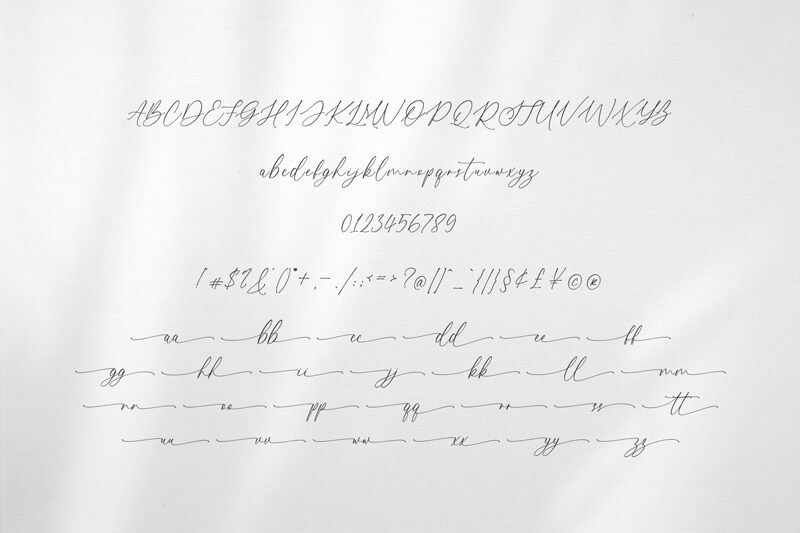
Gisella, a captivating handwritten font designed by Pen Culture, exudes a sense of effortless elegance and genuine authenticity. This light, signature-style typeface boasts fluid strokes and harmonious letter connections, creating a visually striking and emotionally evocative impression. Gisella's organic, handcrafted aesthetic seamlessly blends the charm of a personal signature with the refined aesthetics of a professional typeface.
The versatility of Gisella makes it a compelling choice for a wide range of design applications, from elegant wedding invitations and stationery to chic branding and packaging. Its natural flow and distinctive character lend themselves beautifully to projects that aim to convey a sense of warmth, personal touch, and timeless sophistication.
Designed by Revo Farisky from Pen Culture in 2022